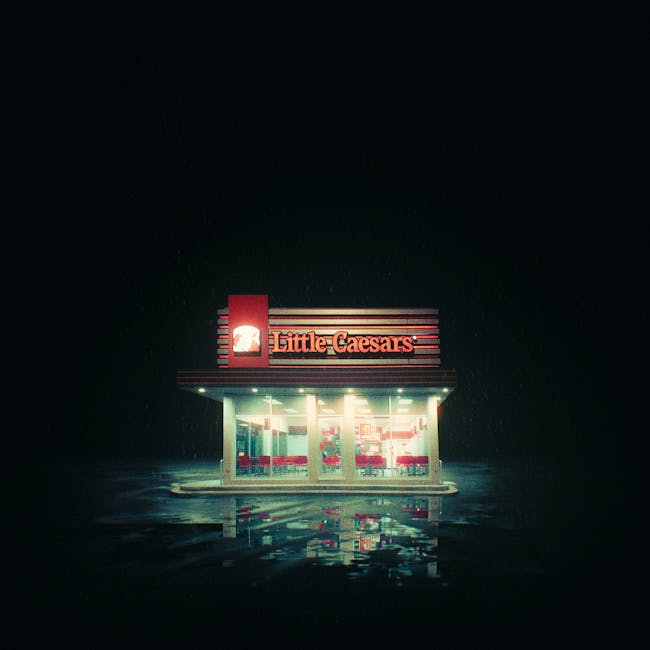
What is Brand Typefaces
What is Brand Typefaces?
In the vibrant world of branding and marketing, the choice of typefaces can often be the unsung hero. Brand typefaces are more than just letters on a page; they are the visual voice of your brand. Just like a memorable jingle or a catchy slogan, typefaces can evoke emotions, convey messages, and shape perceptions. But what exactly are brand typefaces, and why are they so crucial? Let’s explore this fascinating aspect of brand identity.
Understanding Brand Typefaces
Brand typefaces are integral to the design and identity of a brand. They encapsulate the essence of what a brand stands for, translating into visual elements that resonate with an audience.
Definition of Brand Typefaces
Brand typefaces refer to the specific set of fonts chosen to represent a brand across all its communications. They are the visual equivalent of a brand’s tone of voice and help in creating a consistent brand experience. For instance, consider Coca-Cola’s iconic script, which is instantly recognizable and evokes a sense of nostalgia and timelessness.
Importance in Brand Identity
Typography plays a pivotal role in creating a cohesive brand identity. A well-chosen typeface not only enhances readability but also reinforces the brand’s personality. For example, the use of typography by brands like Nike communicates energy and movement, perfectly aligning with its sporty image. Typography can be a powerful tool, as outlined in this article, which discusses how fonts influence consumer sentiment.
Types of Brand Typefaces
Different categories of typefaces bring unique flavors to a brand’s image. Understanding these categories helps in selecting the right one for your brand.
Serif Typefaces
Serif typefaces are characterized by the small lines or strokes attached to the ends of letters. They express a sense of tradition and reliability. Brands like Time magazine use serif fonts to convey authority and respectability. These typefaces are often seen in traditional sectors like finance and academia.
Sans-serif Typefaces
Sans-serif typefaces, known for their clean and modern look, are the choice for many contemporary brands. They lack the small lines found in serif fonts, making them appear more straightforward and uncluttered. Brands like Google and Apple favor sans-serif fonts for their simplicity and ease of readability, reflecting a modern and innovative image.
Display Typefaces
Display typefaces are highly stylized and used for specific branding elements like logos and headers. They are eye-catching and distinctive, providing a unique identity to brands. Consider the whimsical fonts used by companies like Disney, which are crafted to capture the imagination and appeal to a sense of wonder and creativity.
Choosing the Right Brand Typeface
Selecting the appropriate typeface involves more than just aesthetic preference; it requires a deep understanding of your brand’s core values and the message you wish to communicate.
Understanding Brand Values
Your choice of typeface should reflect your brand values. A luxury brand might opt for an elegant serif typeface, while a tech startup might choose a sleek sans-serif font. This alignment ensures that the typeface not only looks good but also feels right, as discussed in this guide.
Legibility and Readability
Even the most beautiful font is ineffective if it is hard to read. Ensure that your typeface is legible across various devices and platforms. According to this resource, readability is essential, especially in digital mediums where fonts must be clear on screens.
Consistency Across Platforms
Maintaining consistency in typeface usage across all platforms is crucial for brand recognition. This includes everything from your website and social media to printed materials. Consistency helps solidify the brand in the minds of consumers, as highlighted by the University of Illinois’ brand guidelines.
Case Studies of Successful Brand Typefaces
Examining how successful brands utilize typefaces can provide inspiration and insight.
Coca-Cola
Coca-Cola’s typeface is a classic example of how typography can become synonymous with a brand. Its Spencerian script font is not only visually appealing but also evokes a sense of nostalgia, aligning perfectly with its long-standing brand message of tradition and joy.
Nike
Nike’s use of a bold, sans-serif typeface communicates strength and activity. This choice complements its dynamic brand identity, creating a cohesive message that resonates with athletes and those inspired by sports.
Spotify
Spotify’s typeface is clean and modern, reflecting its focus on digital music consumption. The simplicity of its sans-serif font aligns with its user-friendly platform, enhancing its brand image as an accessible and innovative service.
In conclusion, brand typefaces are a vital component of a brand’s identity. They do more than just convey information; they tell your brand’s story in a visual language that is both powerful and persuasive. By understanding the types of typefaces and how they can reflect your brand values, you can create a cohesive and compelling brand identity that resonates with your audience. Whether it’s the timeless elegance of a serif font or the modern appeal of a sans-serif, the right typeface can be a cornerstone of your brand’s success.